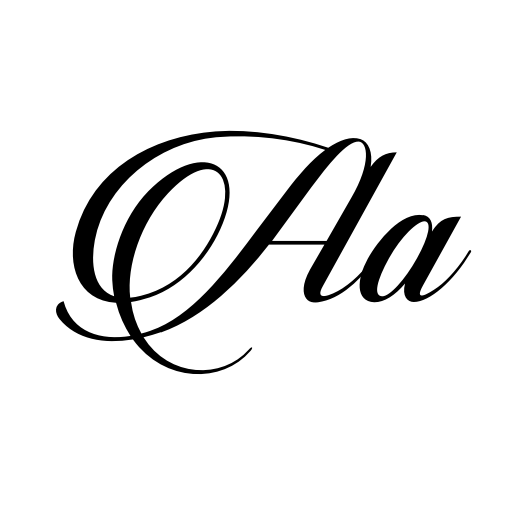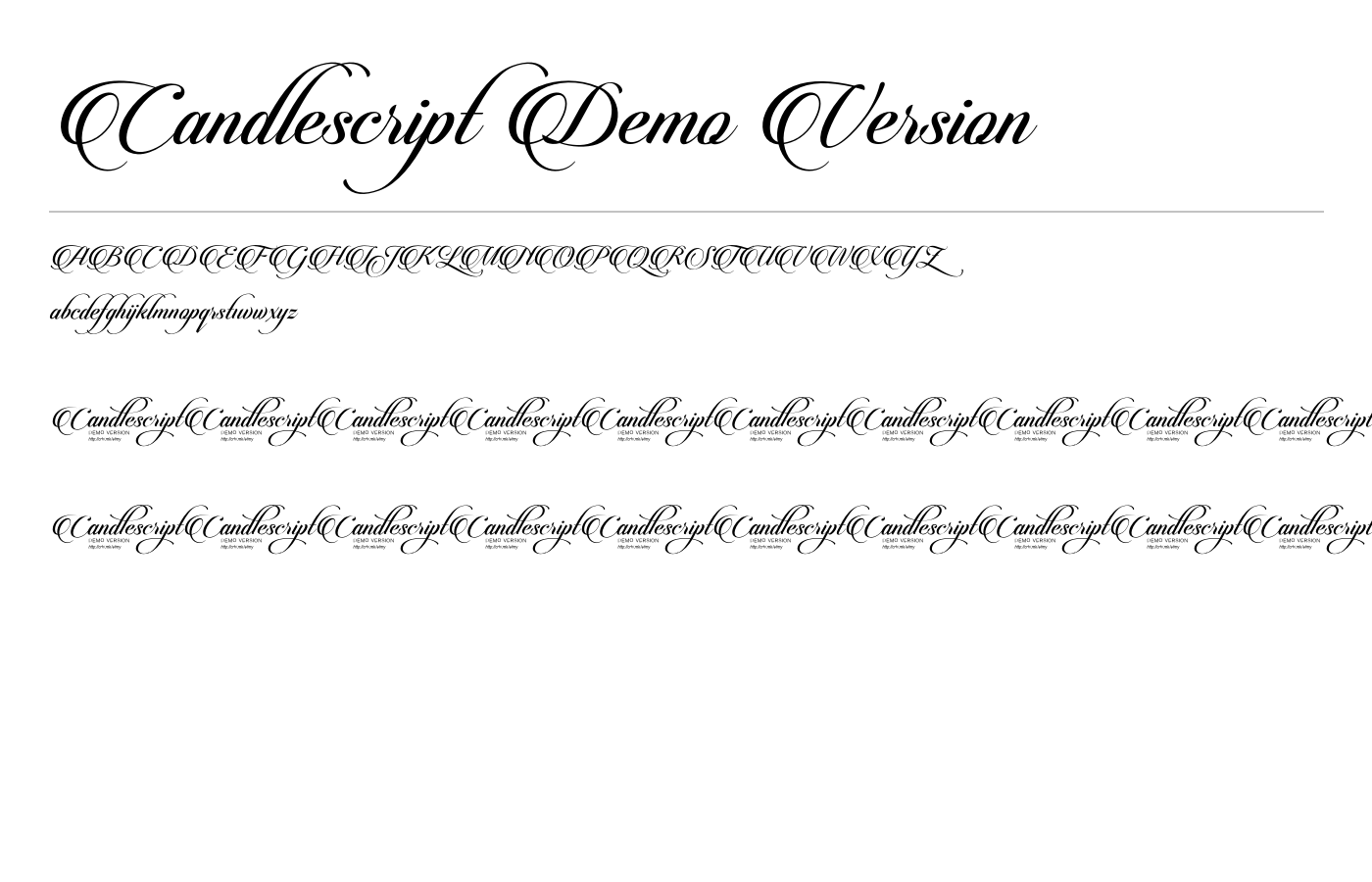
Candlescript Demo Version is an elegant and refined script font featuring flowing, delicate strokes with high contrast that evoke a sense of luxury and sophistication. Its beautifully crafted swashes and flourishes make it ideal for formal invitations, branding, and logos where a graceful, classic touch is desired. This font shines best in large sizes where its intricate details can be fully appreciated, adding charm and style to any upscale design.
Candlescript Demo Version Font
About Candlescript Demo Version Font